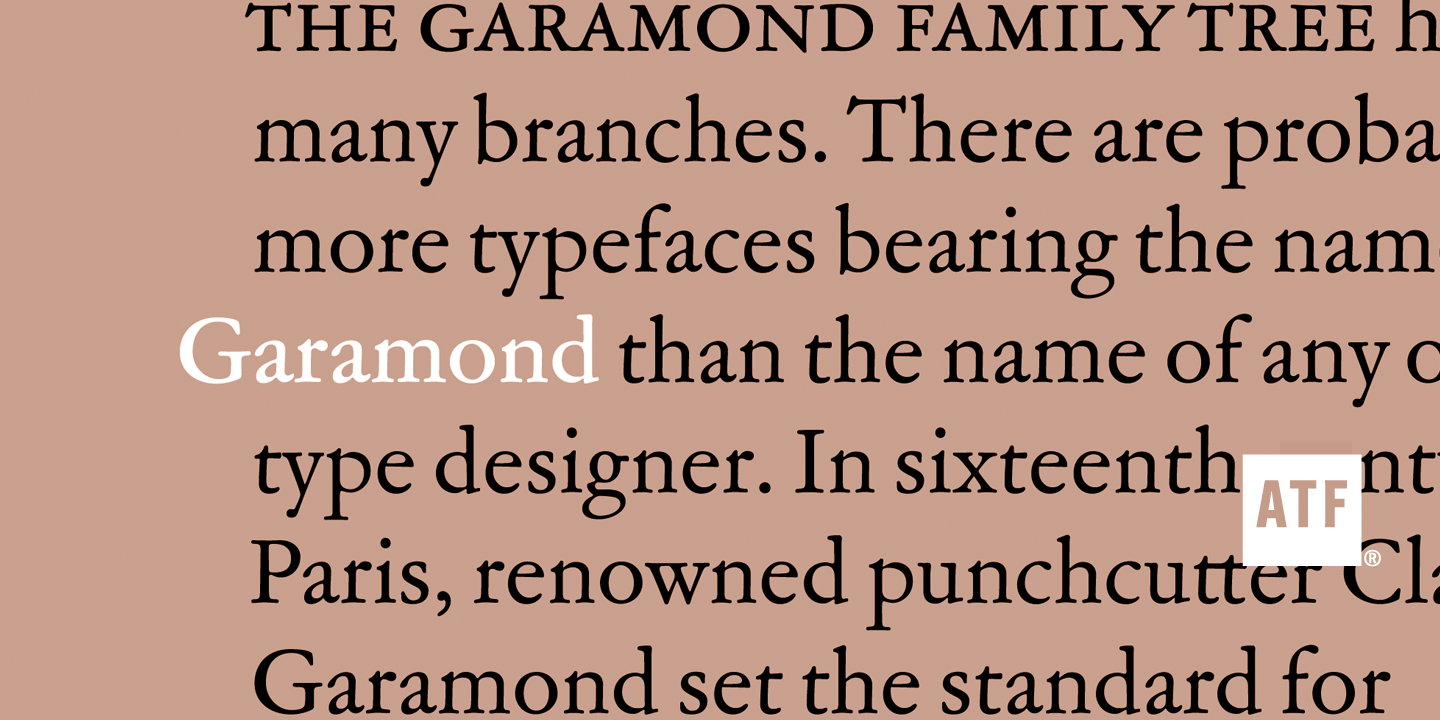
ATF Garamond Font is perfect for classic book publishing, traditional academic journals, elegant literary magazines, scholarly publication layouts, sophisticated editorial designs, timeless corporate communications, premium brand materials, cultural institution publications, and any design project that requires historic typographic excellence and enduring classical beauty.
What makes ATF Garamond Font so exciting is its extraordinary preservation of centuries-old typographic mastery that brings the refined elegance and scholarly authority of Renaissance-era craftsmanship to contemporary design applications. This font embodies the pinnacle of classical typography with its beautifully proportioned letterforms that have stood the test of time through their perfect balance of readability and aesthetic grace. The meticulously crafted characters feature authentic historical details and refined serifs that communicate scholarly authority, cultural sophistication, and timeless elegance, creating the perfect typography solution for projects that demand both intellectual credibility and enduring visual beauty rooted in typographic tradition.
The ATF Garamond Font family typically includes multiple weight variations with comprehensive character sets featuring uppercase and lowercase letters, numerals, punctuation marks, and classical typographic elements. Some versions may offer additional styles like italic variants and optical size options, providing designers with traditional tools for creating sophisticated, scholarly layouts with genuine historical authenticity and classical publishing appeal.
ATF Garamond Font Free Download has become increasingly valuable among publishers, academic institutions, and cultural organizations who appreciate traditional typographic excellence. This distinctive typeface excels in both digital and print applications where classical authority and scholarly credibility are essential for communicating with educated audiences who value intellectual depth and cultural sophistication.
The font's classical design makes it particularly effective for publishing houses, universities, museums, and cultural institutions that need to communicate scholarly authority and intellectual heritage. Its traditional character shapes and excellent readability ensure professional results across various media formats while maintaining authentic classical appeal.
Designers choose ATF Garamond Font for its ability to instantly establish scholarly credibility and cultural sophistication while providing superior reading experience for extended text. The font's historical construction works magnificently on everything from academic publications to prestigious cultural communications.
Whether you're developing scholarly publications, cultural institution materials, classical brand communications, or traditional editorial designs, ATF Garamond Font delivers the perfect fusion of historical authenticity and timeless elegance that connects contemporary projects with centuries of typographic excellence and intellectual tradition.